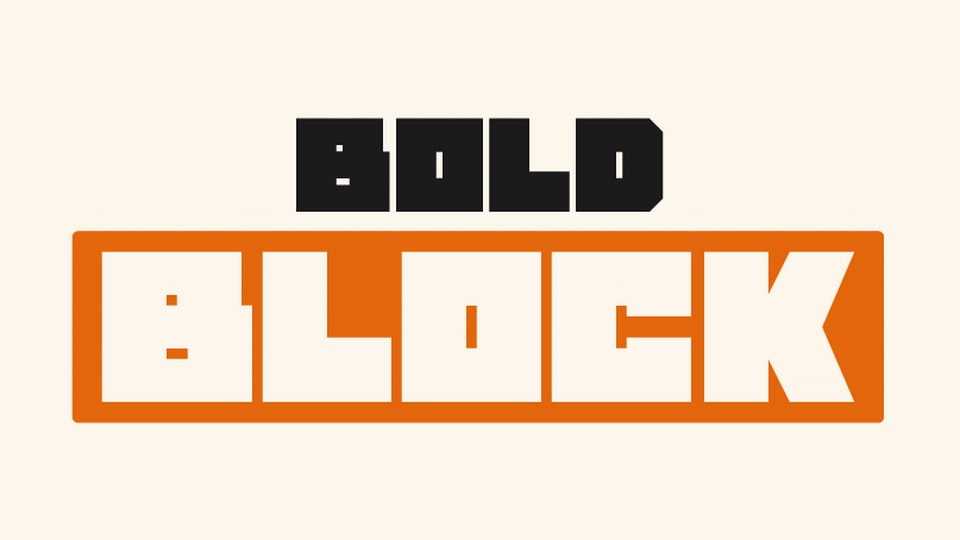
Download Bold Block font, a powerful, heavy block typeface designed with bold, rectangular shapes that command attention.
Designer: Imad Eddin Bekhoucha